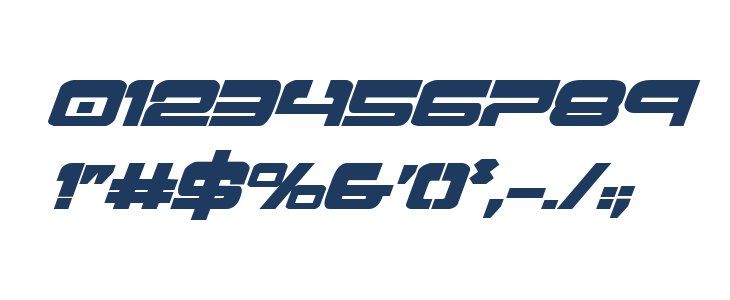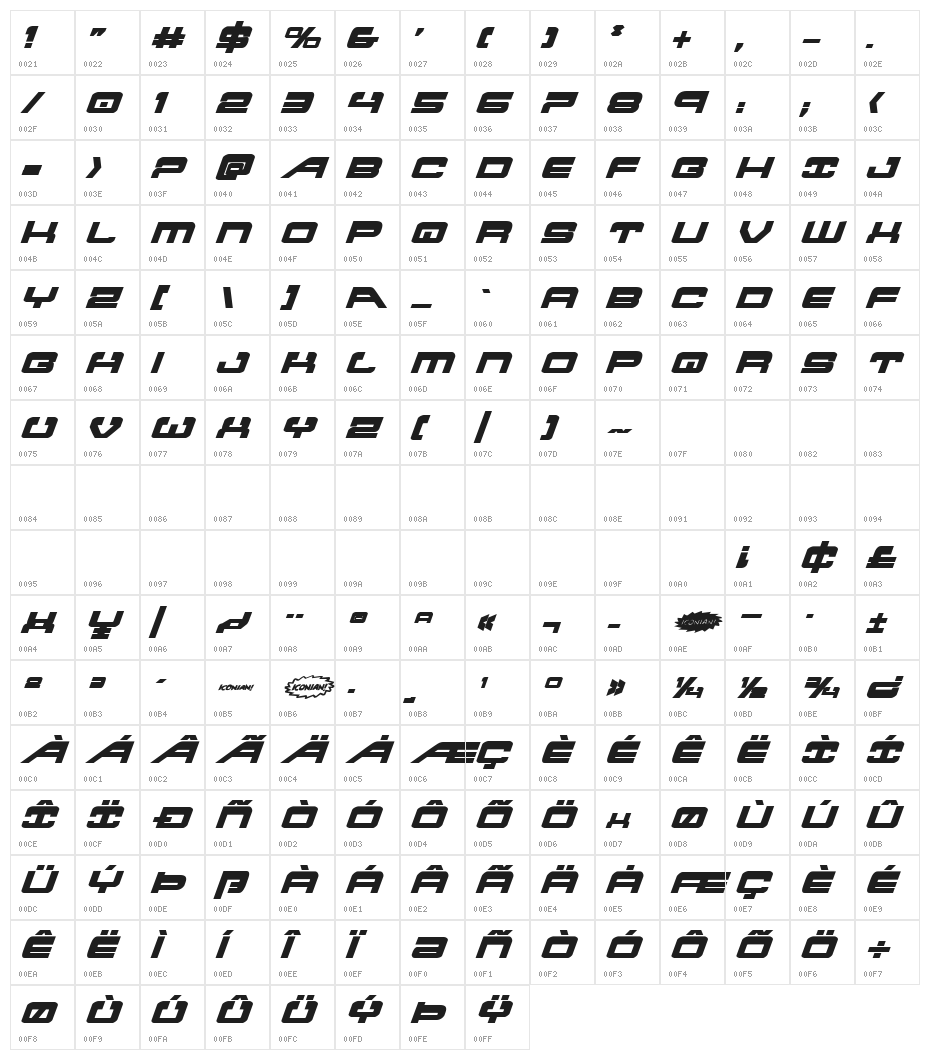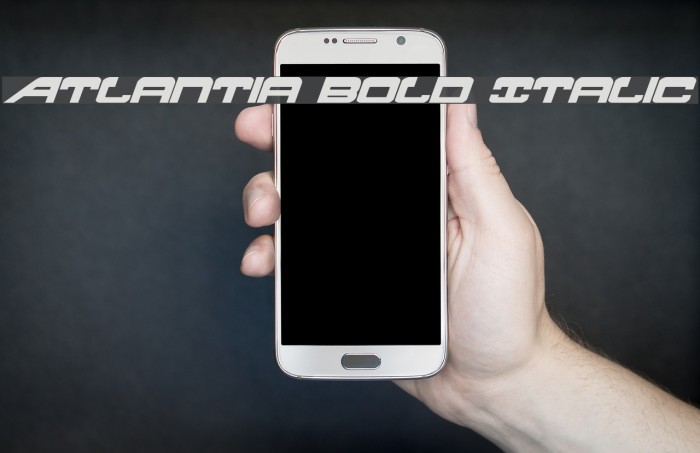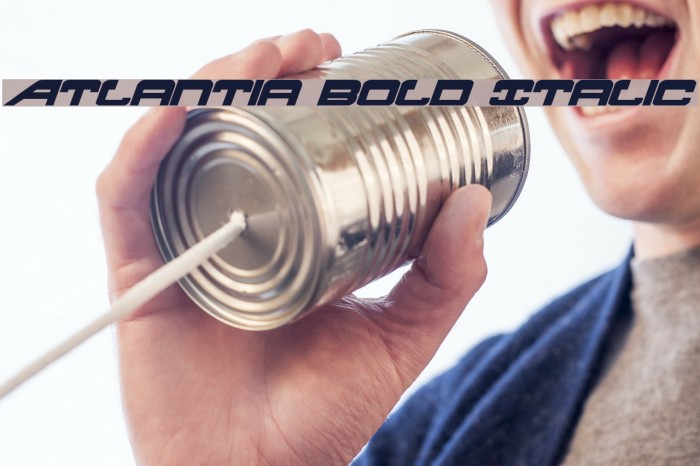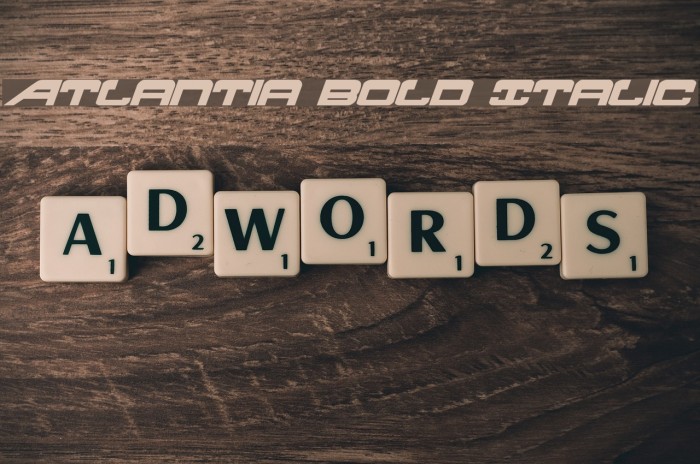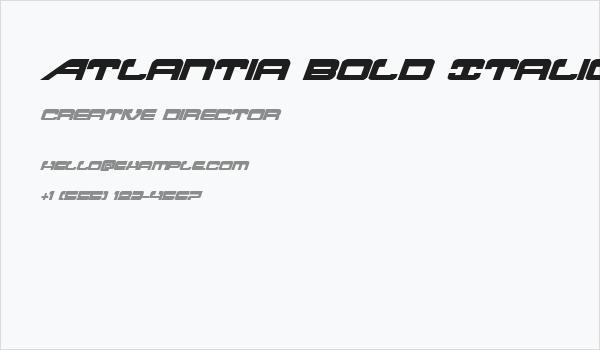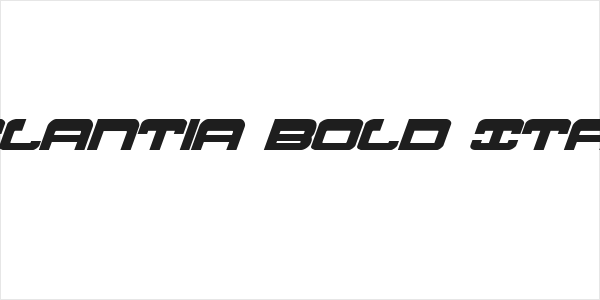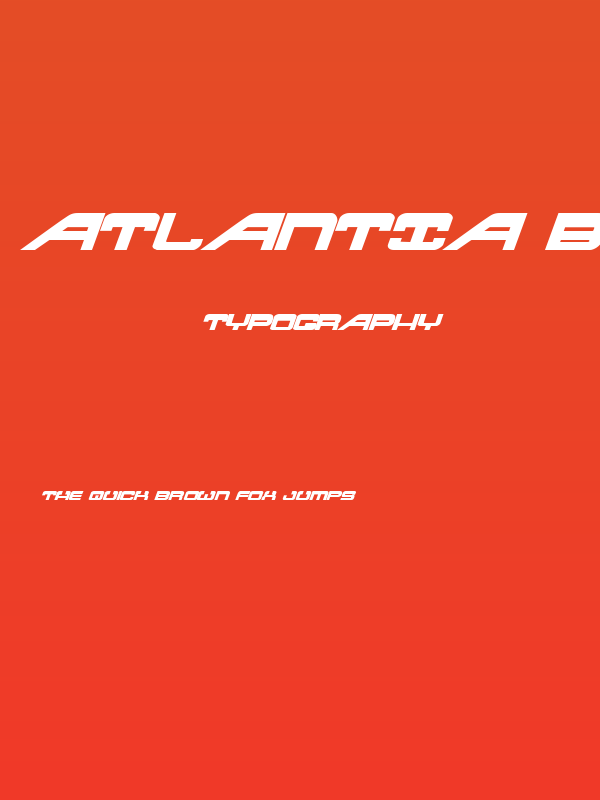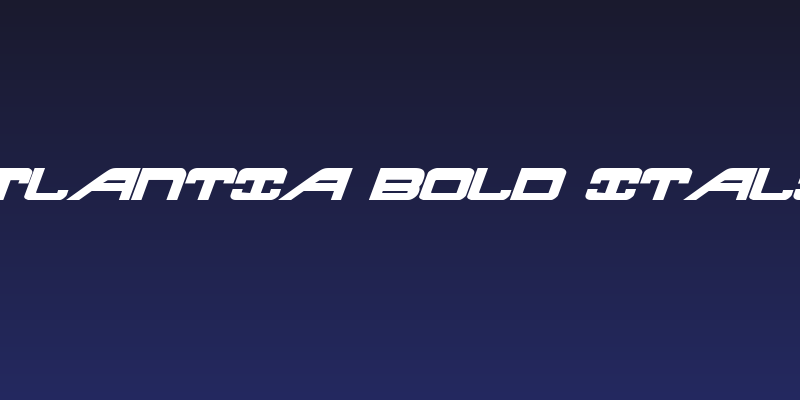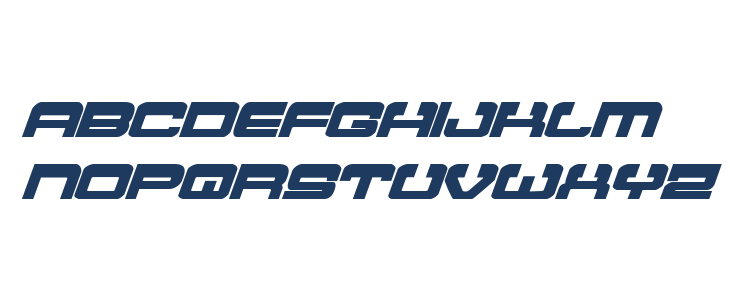
Atlantia Bold Italic Font
Atlantia Bold Italic Description
This font exhibits a bold and italicized style with a futuristic and dynamic appearance. The characters are designed with sharp angles and a forward-leaning posture, giving a sense of motion and speed. The uppercase and lowercase letters maintain a consistent style, with the uppercase being more prominent and the lowercase slightly more compact. The numerals are bold and align well with the overall aesthetic, while the special characters are uniquely styled to match the font's energetic vibe. The font's design is clean, with a modern touch that makes it suitable for attention-grabbing headlines and logos.